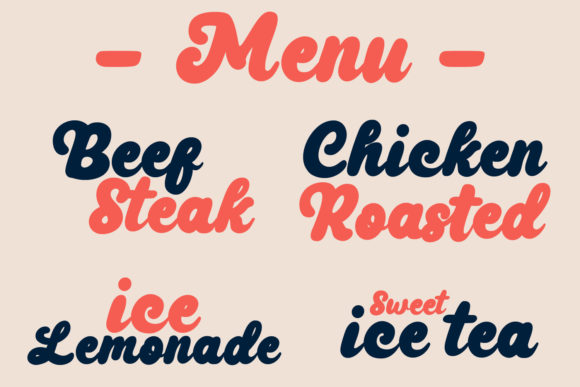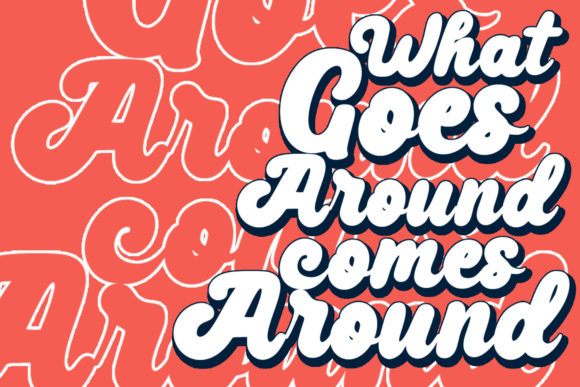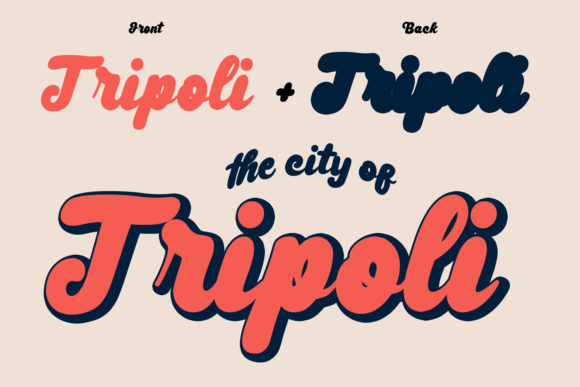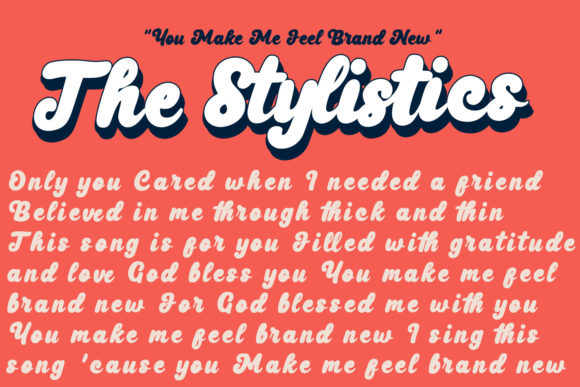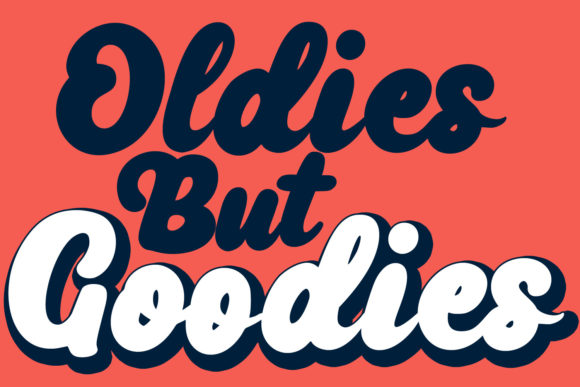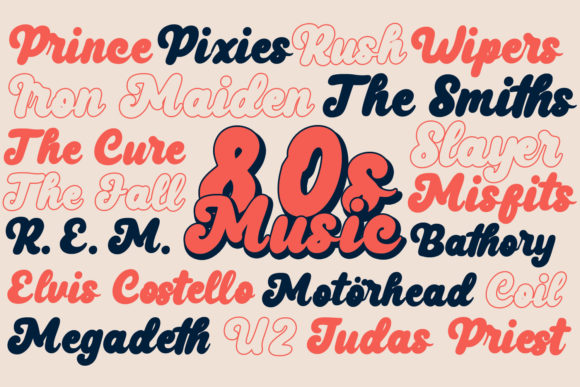
Introduction to Pure Grapes Font
Pure Grapes is a fancy handwritten script font.
With bold contrast stroke, fun character with a bit of ligatures and alternates To give you an extra to your creative work.
Pure Grapes Font offers exceptional quality and versatility, making it a valuable addition to your design toolkit. Whether you’re creating for personal projects or commercial use, Pure Grapes Font delivers professional results.